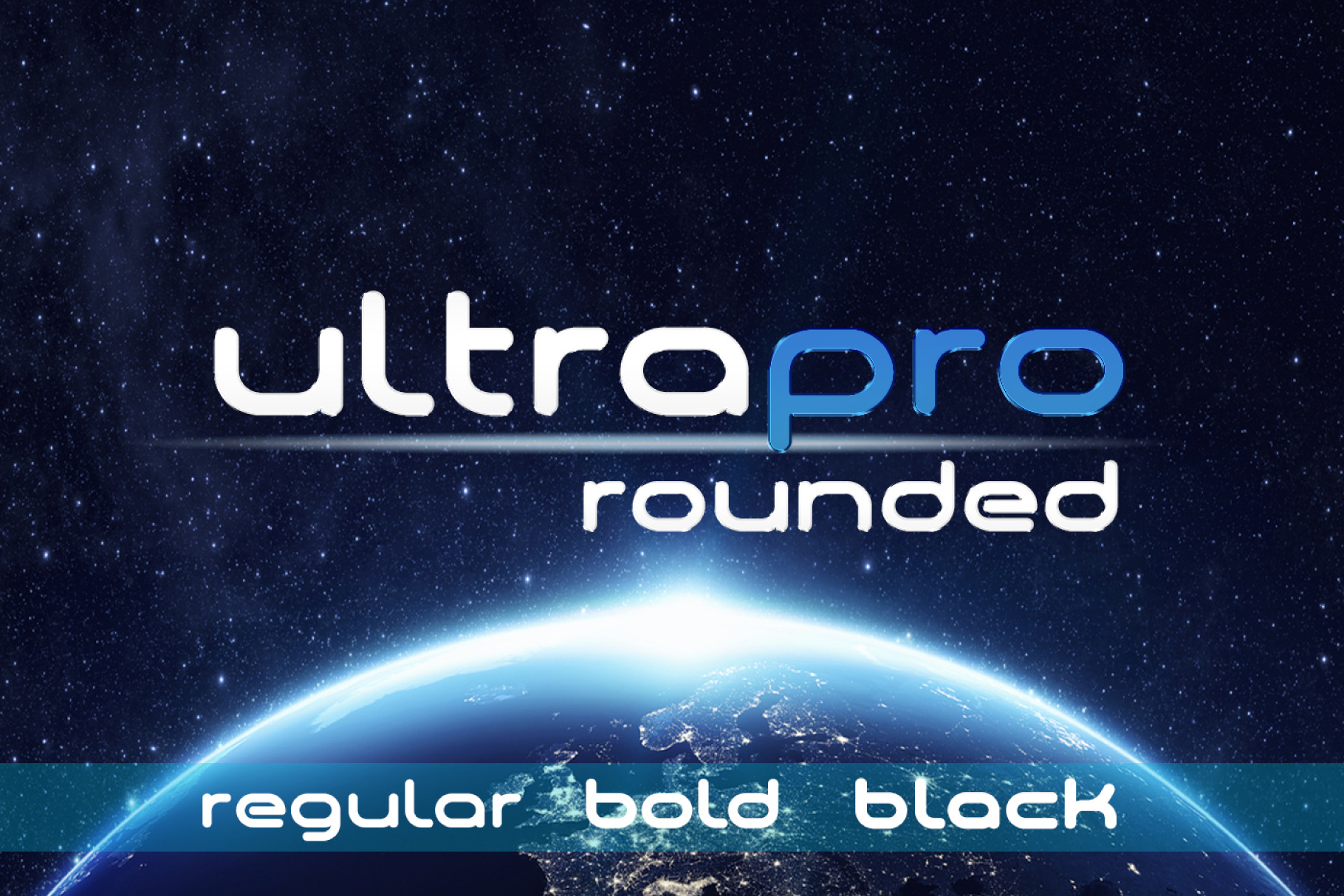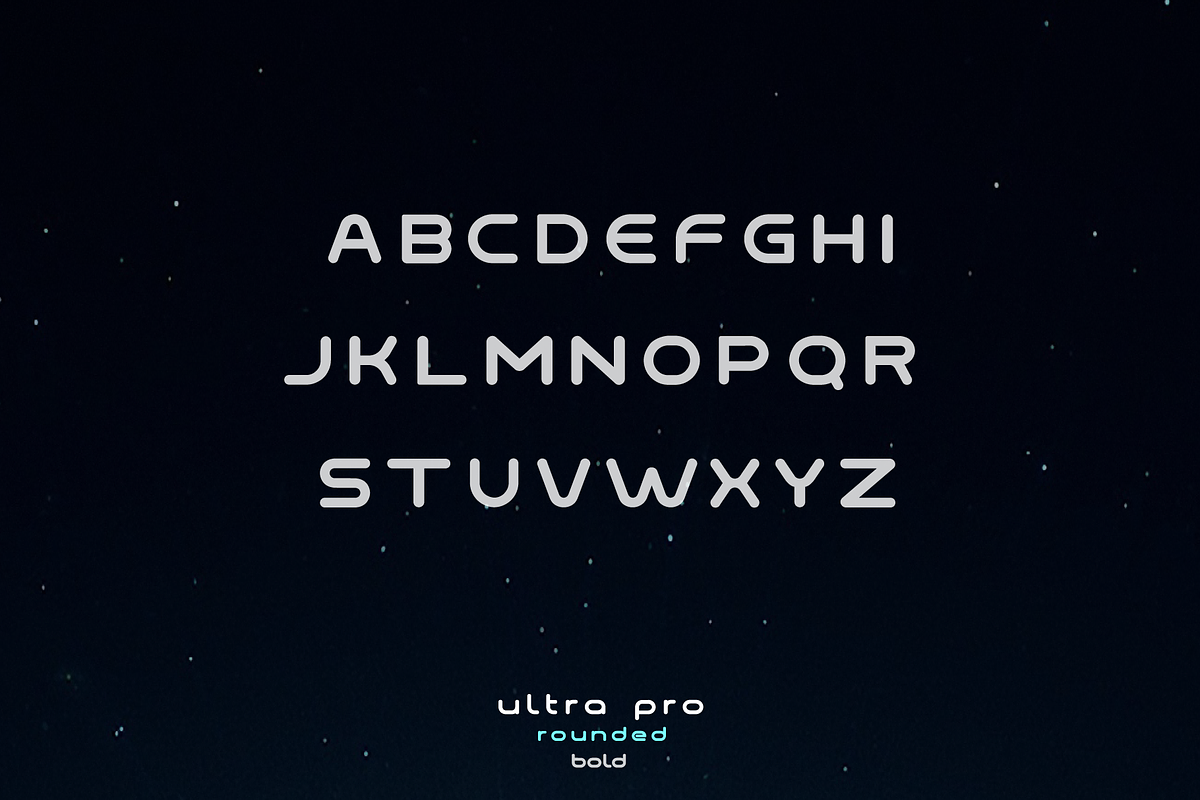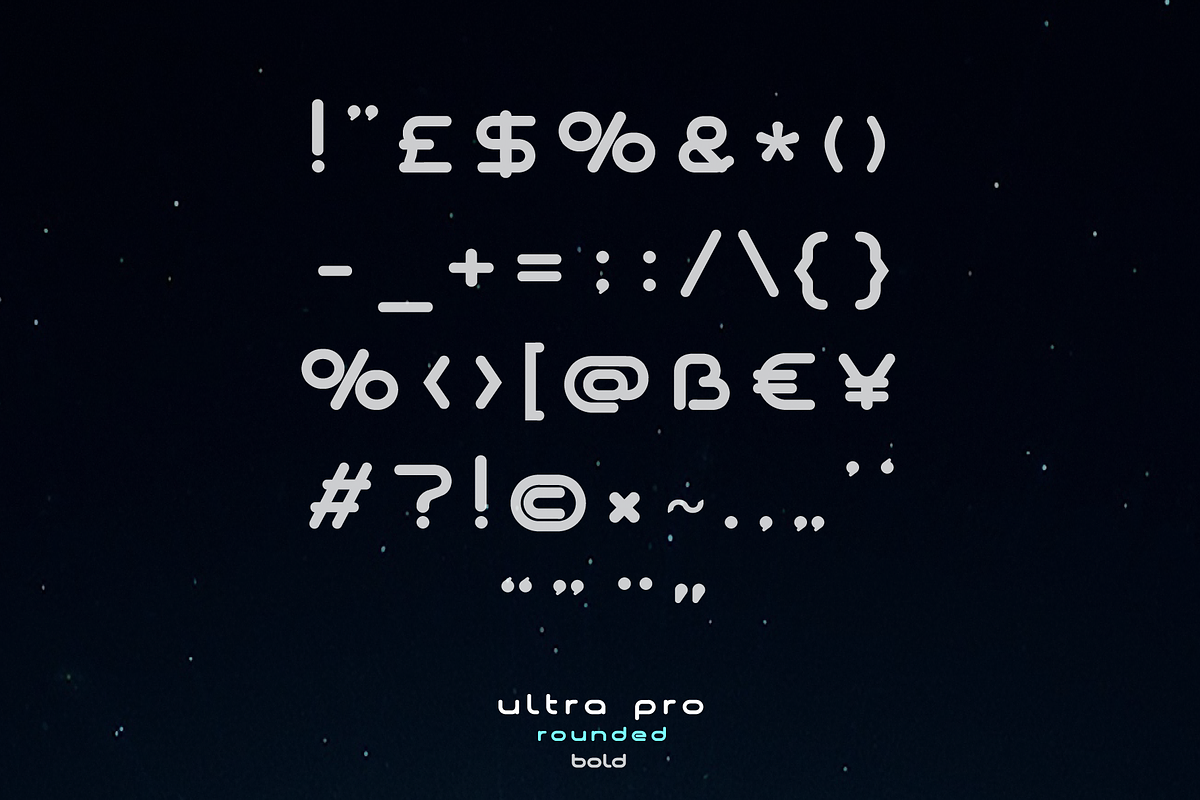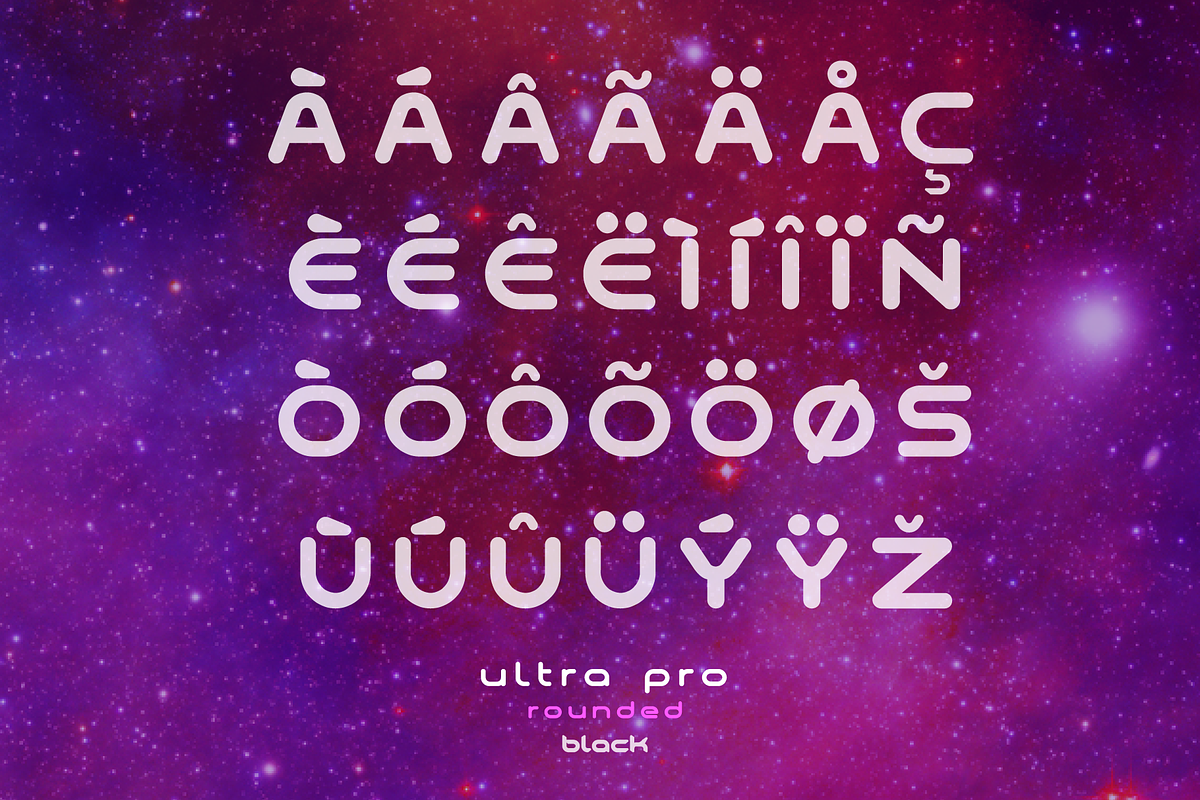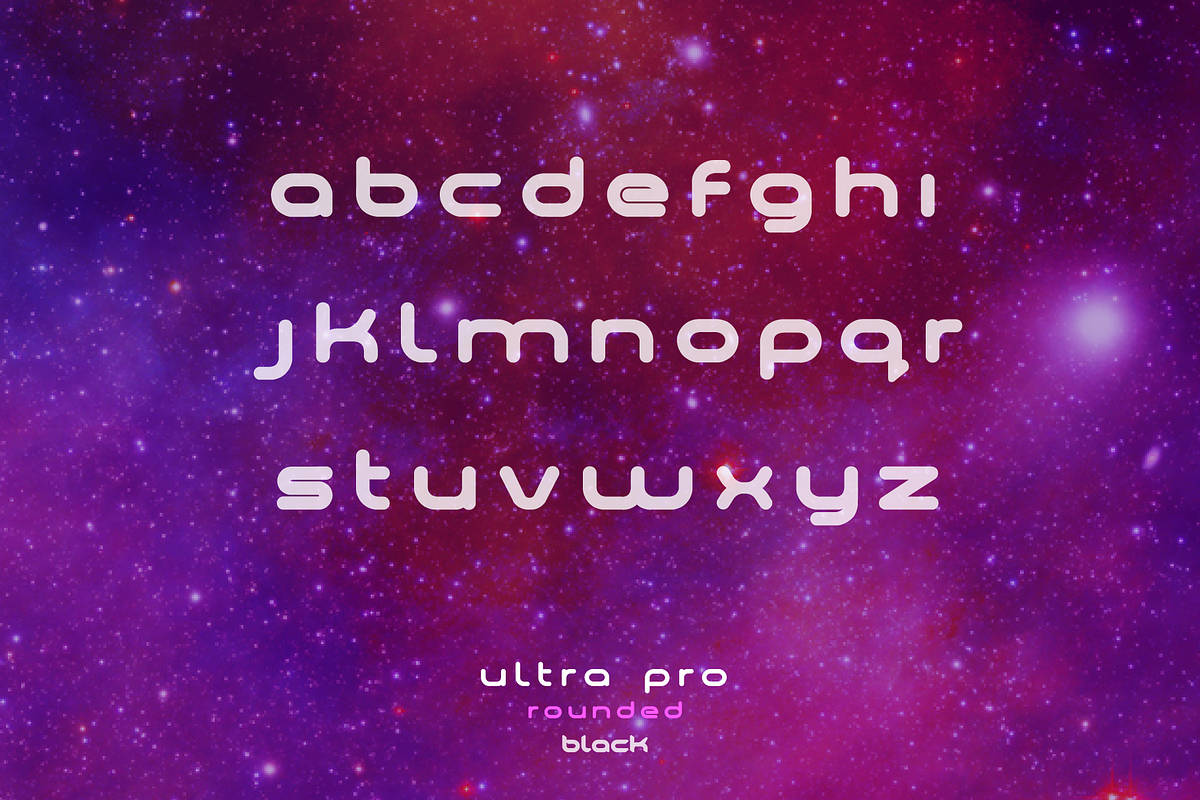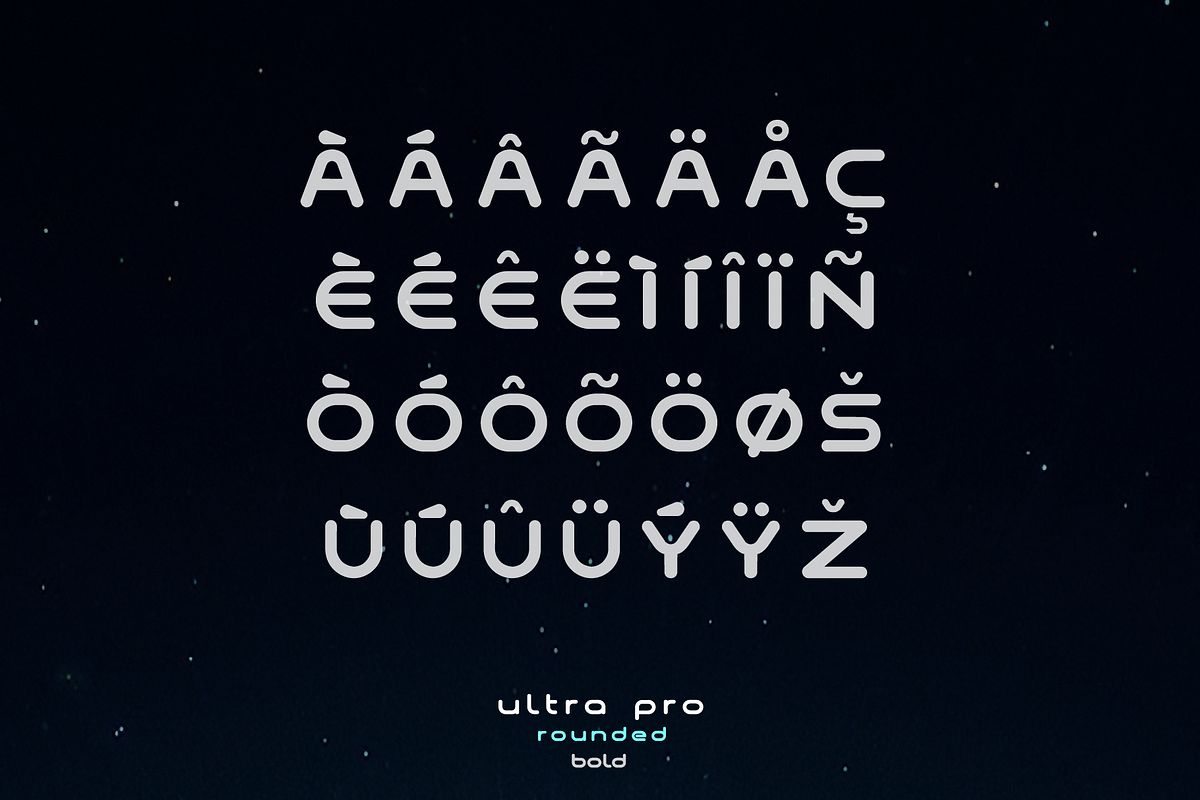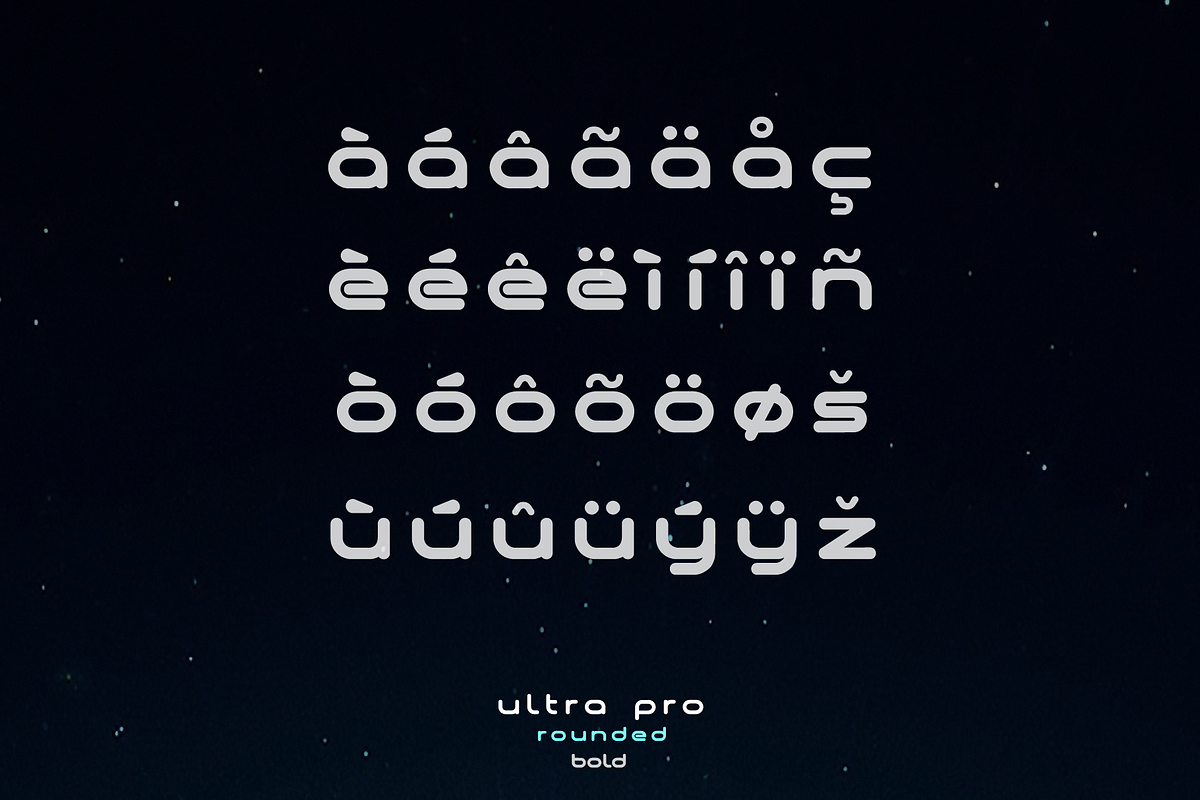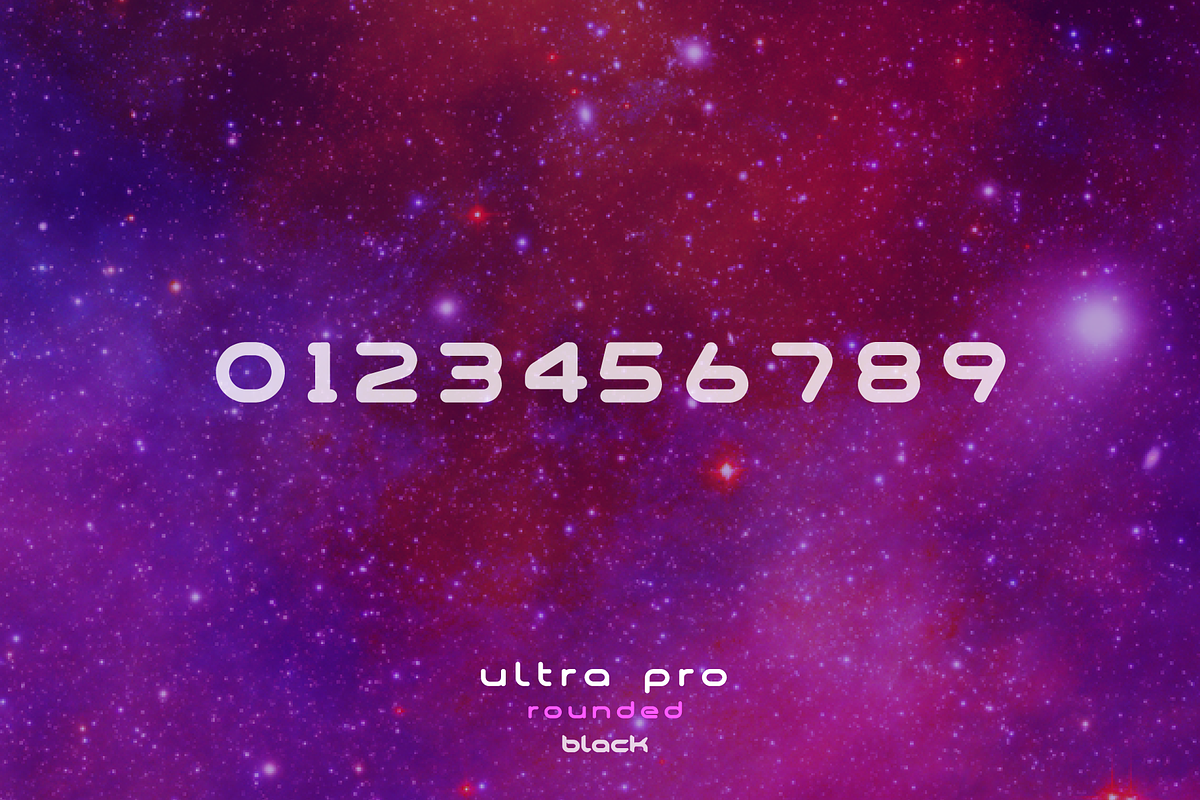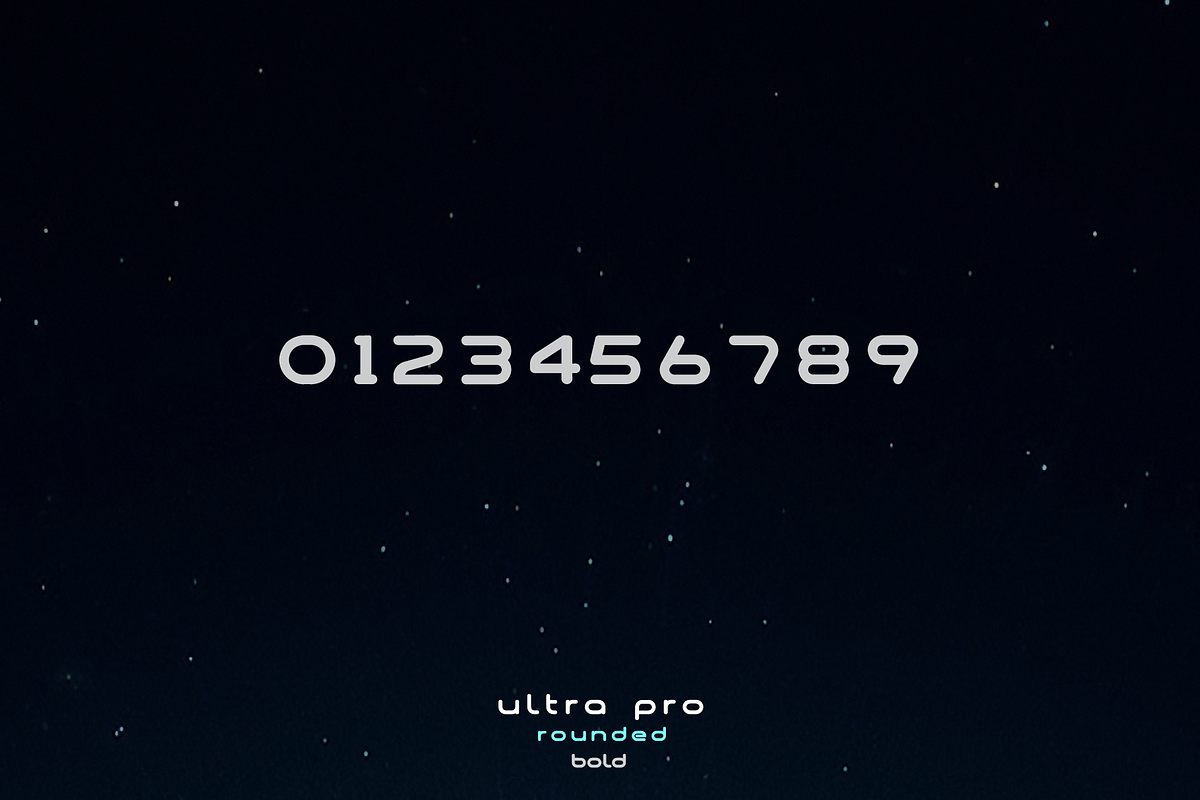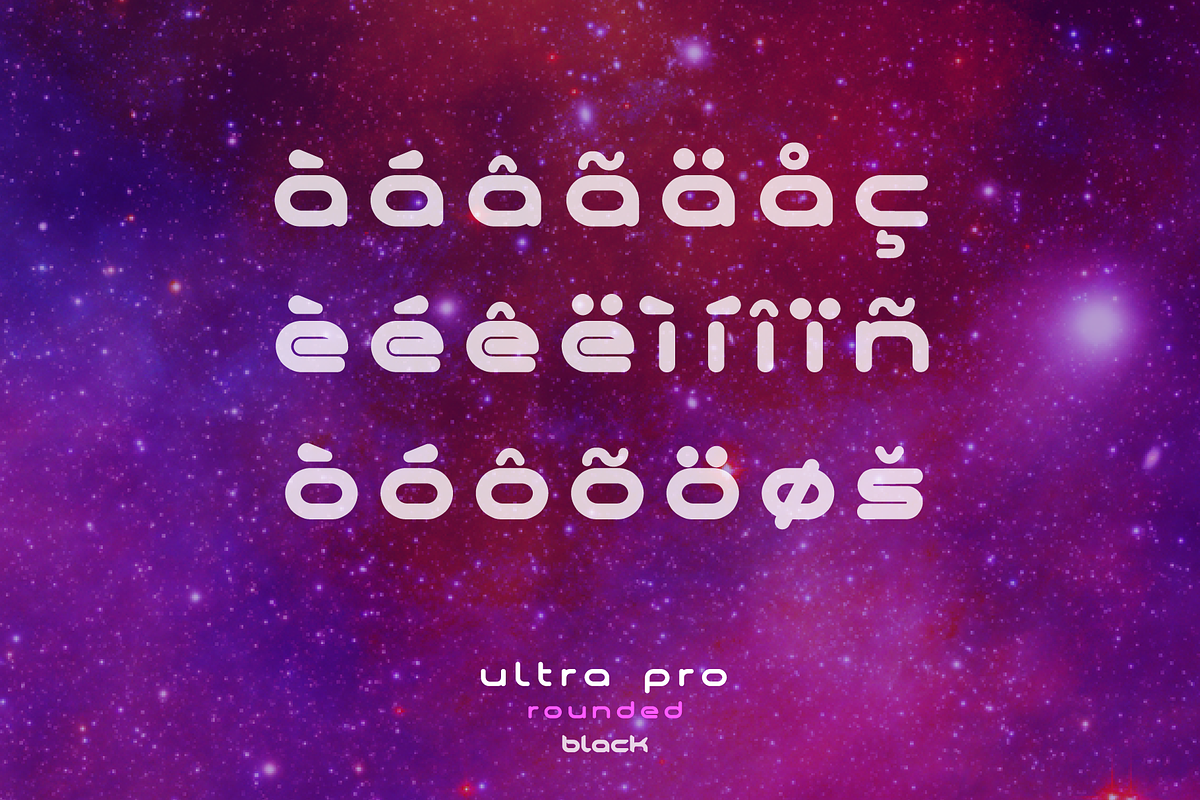
Ultra Pro Rounded Font Family
Ultra Pro Rounded Font Family contains 3 fonts:- Ultra Pro Rounded Regular Ultra Pro Rounded Bold Ultra Pro Rounded Black
Each font contains lowercase, uppercase, numbers, punctuation and many international latin characters.
These fonts are ideal for user interface design, web design, product design etc.
Sleek, clean, professional and modern look that is very pleasing on the eye.